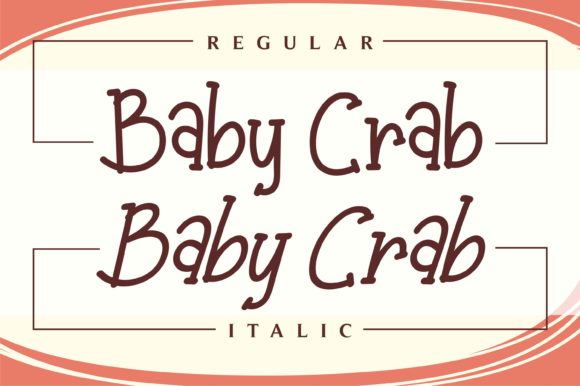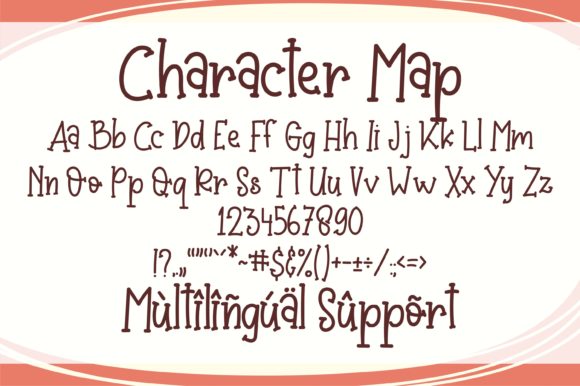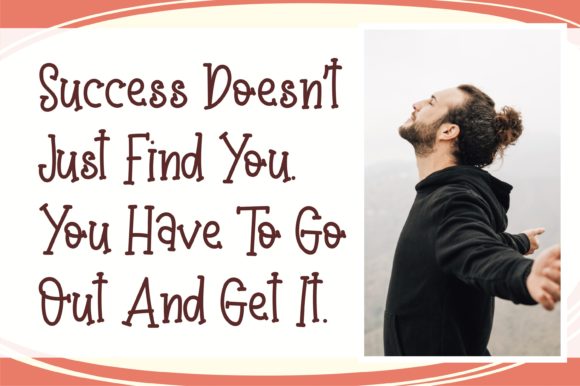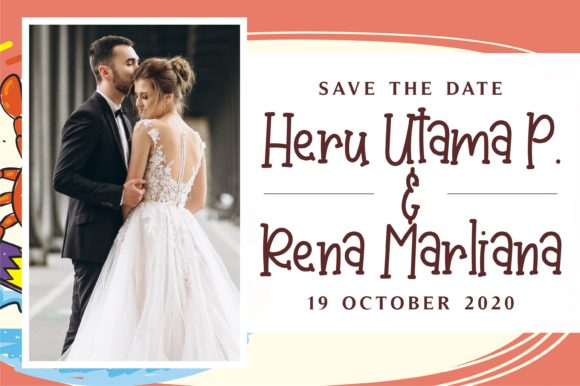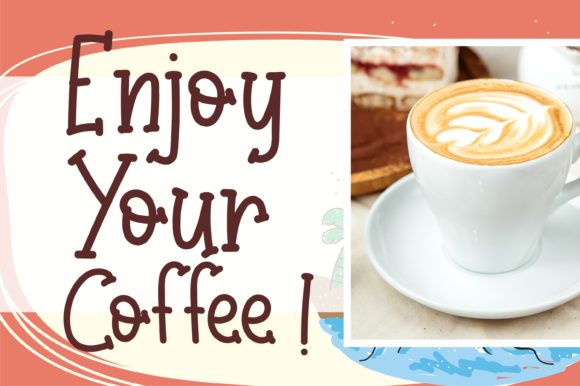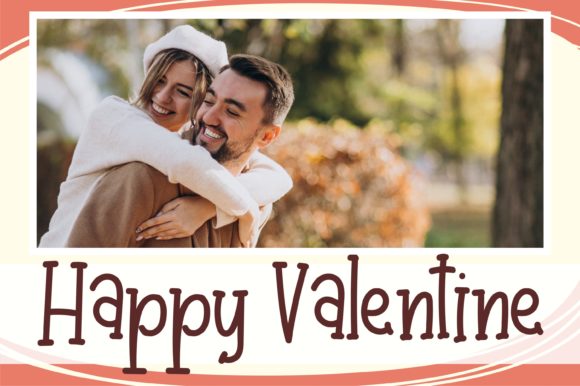
Baby Crab Font: Add a Playful Touch to Your DIY Projects
Are you looking for a font that can add a dash of playfulness and whimsy to your DIY projects? Look no further than the Baby Crab Font! This quirky handwritten font is sure to capture your heart with its unique style and charming aesthetic. In this article, we’ll dive into the world of Baby Crab Font and explore how you can use it to bring your creative projects to life.
What is Baby Crab Font?
Baby Crab Font is a one-of-a-kind handwritten font that boasts a distinctive and playful look. Its unique style is perfect for designers, crafters, and DIY enthusiasts who want to add a personal touch to their projects. Whether you’re working on a craft project, creating social media graphics, or designing a website, Baby Crab Font is sure to make your work stand out.
Key Features of Baby Crab Font
- Quirky and Playful: Baby Crab Font has a fun and carefree vibe that’s perfect for projects that require a playful touch.
- Unique Style: This font boasts a distinctive style that’s sure to set your projects apart from the rest.
- Handwritten: Baby Crab Font is a handwritten font, which gives it a personal and organic feel.
- Versatile: This font can be used for a wide range of projects, from crafting and DIY to graphic design and digital marketing.
How to Use Baby Crab Font in Your DIY Projects
Now that we’ve covered the basics of Baby Crab Font, let’s dive into some practical ways you can use it in your DIY projects. Here are a few ideas to get you started:
- Crafting: Use Baby Crab Font to add a personal touch to your craft projects, such as scrapbooking, card making, and journaling.
- Social Media Graphics: Add a playful touch to your social media graphics, such as Instagram posts and Facebook headers, with Baby Crab Font.
- Website Design: Use Baby Crab Font to create a unique and memorable website design that reflects your brand’s personality.
- Paper Crafting: Use Baby Crab Font to create custom paper crafts, such as party invitations, gift tags, and paper flowers.
Tips for Getting the Most Out of Baby Crab Font
To get the most out of Baby Crab Font, here are a few tips to keep in mind:
- Experiment with Colors: Try pairing Baby Crab Font with different colors and textures to create a unique look.
- Mix and Match: Combine Baby Crab Font with other fonts and graphics to create a visually interesting design.
- Keep it Simple: Don’t be afraid to keep your design simple and clean, allowing Baby Crab Font to take center stage.
In conclusion, Baby Crab Font is a quirky and playful handwritten font that’s perfect for designers, crafters, and DIY enthusiasts. With its unique style and charming aesthetic, it’s sure to add a dash of whimsy to your projects. Whether you’re working on a craft project, creating social media graphics, or designing a website, Baby Crab Font is a great choice. So why not give it a try and see how it can bring your creative projects to life?
Overall, Baby Crab Font is a versatile and fun font that’s perfect for anyone looking to add a playful touch to their DIY projects. With its unique style and charming aesthetic, it’s sure to become a favorite among designers, crafters, and DIY enthusiasts.